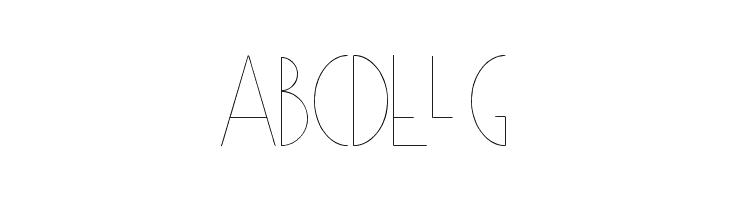
falling free for personal use Font
- Font: falling free for personal use
A modern, minimalist font with thin, elongated strokes and geometric influences.